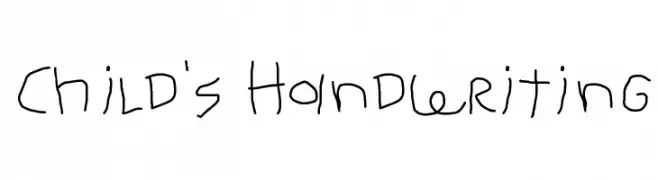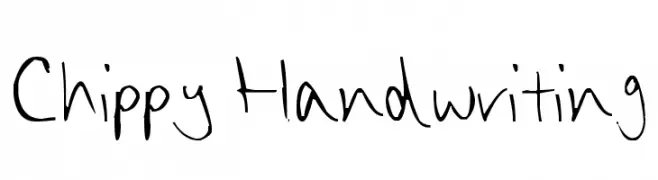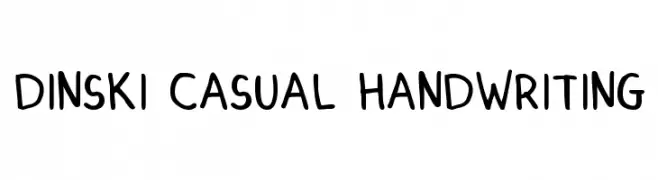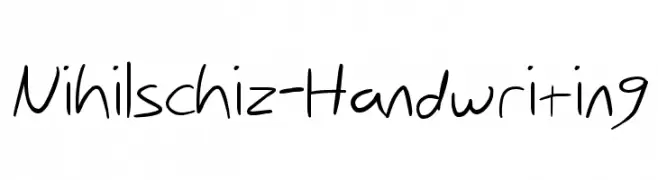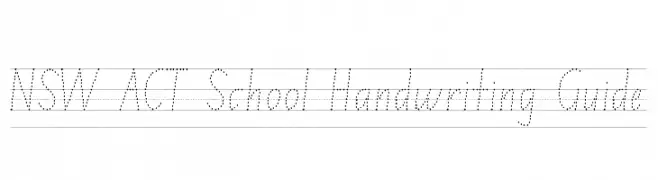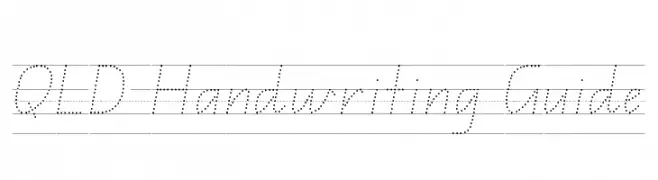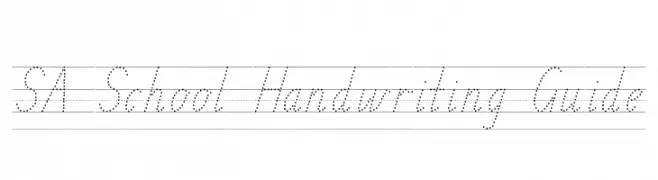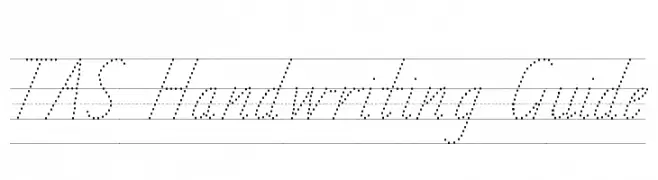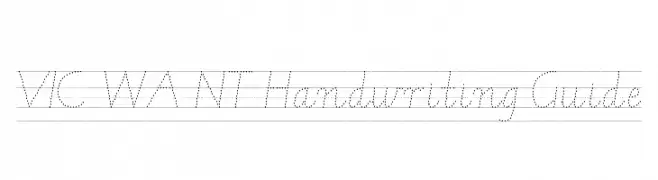
Jellyka BeesAntique Handwriting Font
An elegant, antique-style cursive font with intricate loops and swirls.
!!! Handwritingg 3 Font
Dieter Steffmann
A playful, bold handwritten font with a casual and friendly style.
PhontPhreak's Handwriting Font
Font by PhontPhreak
A casual, handwritten font with fluid strokes and a personal touch.
Child's Handwriting Font
Julieta Ulanovsky
A playful, child-like handwriting font with irregular strokes and spacing.
Jellyka - Estrya's Handwriting Font
A whimsical, cursive font with elegant, flowing strokes and artistic flair.
Akbar Plain Font
Font by Dennis Ludlow - Sharkshock
A playful, bold handwritten font with a whimsical and casual style.
NCAA Marquette Bold Bold Font
Pinisiart
A bold, angular font with a strong, geometric style.
Akbar Font
Font by Jon Bernhardt
A playful, handwritten font with bold, rounded strokes.
Cursive Handwriting Tryout Font
A flowing cursive font with elegant, connected characters.
Celine Dion Handwriting Font
Font by Leanne van der Wel - www.leannevanderwel.nl
A fluid and expressive handwritten-style font with a modern cursive touch.
Amandine Font
Font by www.philing.net
A playful handwritten font with fluid, interconnected strokes and a whimsical style.
Cholo Font
Font by Apostrophic Lab
A bold, graffiti-inspired font with angular, hand-drawn characters.
Gunny Handwriting Font
A playful and dynamic handwritten font with fluid strokes and unique character designs.
MAWNS Handwriting Font
Font by Mans Greback - www.mawns.com
A dynamic and expressive handwritten font with fluid strokes and a creative flair.
QLD Handwriting Guide Font
DaShiz
A dotted educational font for teaching handwriting.
Book Illustrator's Handwriting Font
A playful, handwritten-style font with rounded, consistent strokes.
Hynings Handwriting V2 Regular Font
A playful, casual handwritten font with smooth, rounded letterforms.
Handwriting Font
Font by Sam Wang
A casual, handwritten font with dynamic, fluid strokes.
Björk Handwriting Font
A playful, informal handwritten font with irregular, spontaneous letterforms.